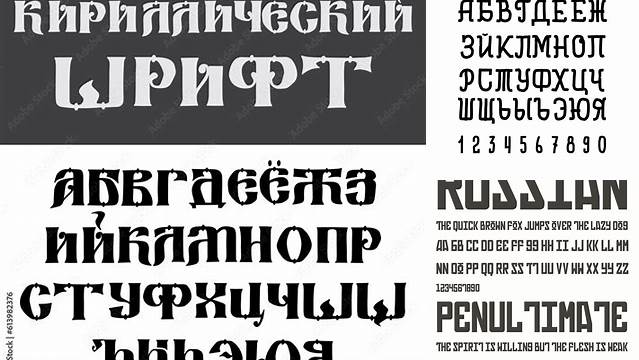
Are you looking for amazing Russian fonts for your next design project? Well, you've come to the right place! In this comprehensive guide, we'll dive deep into the world of Cyrillic typography, specifically focusing on the incredible resources available at 1001fonts.com. We will explore the extensive collection of Russian fonts that 1001fonts.com offers, helping you discover the perfect typeface to capture the authentic and expressive essence of the Russian language and culture. Whether you're designing a website, creating marketing materials, or working on a personal project, understanding the nuances of Cyrillic fonts and how to use them effectively is crucial. So, buckle up, guys, and let's embark on this typographic journey together!
Why Russian Fonts Matter
Before we get into the specifics of 1001fonts.com, let's quickly discuss why choosing the right Russian font is so important. Think about it: fonts aren't just about making words look pretty. They play a huge role in conveying the right mood, tone, and cultural context. Imagine using a whimsical, playful font for a serious historical document – it just wouldn't work, right? Similarly, when working with the Russian language, using a font that respects the Cyrillic script's unique characteristics is essential. Choosing the appropriate Russian font is critical for ensuring your message is not only legible but also resonates culturally and emotionally with your audience. The subtle nuances in font design can significantly impact the perception and interpretation of your message, making the selection process a crucial step in any project involving the Russian language.
The wrong font can make your design look unprofessional or even disrespectful. A well-chosen font, on the other hand, can add authenticity and flair to your work, making it truly stand out. A thoughtfully selected typeface enhances readability, ensuring that your message is easily understood and appreciated. Additionally, the right font can evoke specific emotions and associations, enriching the overall impact of your design. From elegant serifs that convey tradition and sophistication to bold sans-serifs that project modernity and dynamism, the choice of font is a powerful tool in visual communication. In essence, the typography you choose speaks volumes about your attention to detail and your understanding of the cultural context in which you are communicating.
Navigating 1001fonts.com for Russian Fonts
Alright, now let's get to the good stuff: finding those perfect Russian fonts on 1001fonts.com! This website is a treasure trove of fonts, and it might seem a little overwhelming at first. But don't worry, I'm here to guide you through it. 1001fonts.com offers a vast array of options, including various styles, weights, and licensing terms, making it an ideal resource for designers of all levels. The site’s user-friendly interface is designed to help you efficiently navigate and discover the fonts that best suit your needs. You can easily filter fonts by category, style, and other criteria, allowing you to narrow down your search and focus on the most relevant options. Understanding how to effectively use the site’s search and filtering tools is key to unlocking its full potential and finding the perfect Cyrillic typeface for your project. Let’s explore how you can make the most of 1001fonts.com to find the ideal Russian fonts.
Using the Search Bar
The easiest way to start your search is by using the search bar. Simply type in "Russian," "Cyrillic," or specific keywords like "Russian serif" or "Russian sans-serif." This is a direct approach to finding fonts tailored to the Russian script, ensuring you quickly see relevant options. The search bar is your first port of call when you have a specific idea or style in mind. By using descriptive keywords, you can efficiently sift through the extensive library and pinpoint fonts that align with your project’s requirements. Experiment with different search terms to broaden or narrow your results, and don’t be afraid to get specific – the more precise your search, the more likely you are to find a font that perfectly matches your vision. The search bar is a powerful tool that can save you time and effort, making it an essential feature to master on 1001fonts.com.
Filtering Your Results
Once you've performed a search, you can filter your results to narrow down your options even further. This is where things get really handy! 1001fonts.com offers various filters, such as font style (serif, sans-serif, script, etc.), license type (free for personal use, commercial use, etc.), and more. These filters help you refine your search to match specific criteria, ensuring that you find fonts that not only look good but also meet your usage requirements and project constraints. Understanding and utilizing these filters is crucial for efficiently navigating the vast selection available on 1001fonts.com. By applying the right filters, you can quickly eliminate irrelevant fonts and focus on the options that are most likely to be a good fit. This targeted approach saves you time and allows you to concentrate on the fonts that align with your project’s goals and budget.
For Russian fonts, you might want to filter by "Cyrillic" in the language support options. This will ensure that you only see fonts that include Cyrillic characters, which is obviously pretty important when working with the Russian language! By specifically filtering for Cyrillic support, you avoid the frustration of finding a visually appealing font only to discover that it lacks the necessary characters for your text. This filter is particularly valuable when working with less common languages or scripts, ensuring that the fonts you choose are fully compatible with your content. Additionally, you can combine this filter with others, such as font style and license type, to further refine your search and pinpoint the perfect font for your project. Using the Cyrillic filter is a simple yet effective way to streamline your font selection process and ensure that your typographic choices are both aesthetically pleasing and functionally sound.
Exploring Font Categories
Another great way to discover Russian fonts is by browsing the different font categories. 1001fonts.com categorizes fonts by style (e.g., decorative, handwritten, modern) and theme (e.g., vintage, futuristic, grunge). This method is particularly useful when you’re in the early stages of a project and looking for inspiration. By exploring different categories, you can uncover unexpected gems and discover styles that you might not have considered otherwise. Browsing font categories allows you to see a wide range of options and get a feel for the diverse landscape of typography. This can be especially helpful when you're trying to match a specific mood or aesthetic. Additionally, the category browsing feature can spark creativity and help you refine your vision for the project.
For Russian projects, you might want to explore categories like "Script" for elegant handwritten styles or "Display" for bold and eye-catching fonts. Each category offers a unique collection of fonts, each with its own character and charm. By diving into these categories, you can better understand the nuances of different typographic styles and how they might enhance your design. The Script category, for example, might offer fonts that evoke a sense of tradition and artistry, while the Display category could provide options that are more contemporary and attention-grabbing. Exploring these categories allows you to appreciate the breadth of typographic possibilities and make informed decisions that align with your project’s goals. Furthermore, you can combine category browsing with other search methods, such as using the search bar and filters, to create a more comprehensive and targeted approach to font selection.
Top Russian Font Styles to Consider
Now that you know how to find fonts on 1001fonts.com, let's talk about some specific styles that work well for Russian text. Different styles convey different emotions and suit different purposes, so it's important to choose wisely! The typography you choose plays a significant role in how your message is perceived, and understanding the nuances of various font styles can help you create designs that resonate with your audience. From the classic elegance of serif fonts to the modern simplicity of sans-serifs, each style has its own unique personality and impact. By exploring the different Russian font styles, you can develop a keen eye for typography and make informed choices that enhance the overall aesthetic and effectiveness of your design.
Conclusion: Unleash Your Creativity with Russian Fonts
So there you have it, guys! A comprehensive guide to finding and using Russian fonts on 1001fonts.com. With its vast collection and user-friendly interface, 1001fonts.com is an invaluable resource for designers working with the Cyrillic script. By understanding the nuances of different font styles and following the tips outlined in this guide, you can unlock the full potential of Russian typography and create designs that are both visually stunning and culturally resonant. Remember, the right font can make all the difference in conveying the essence of the Russian language and culture. So, go forth, explore the world of Cyrillic fonts, and let your creativity shine! The world of Russian typography is rich and diverse, offering endless possibilities for creative expression. With the resources available on 1001fonts.com and the knowledge you’ve gained from this guide, you’re well-equipped to embark on your typographic journey. So, don’t hesitate to experiment, explore new styles, and push the boundaries of your design. The key is to have fun and let your creativity guide you. By embracing the beauty and versatility of Russian fonts, you can create designs that are truly unique and impactful. Happy designing!